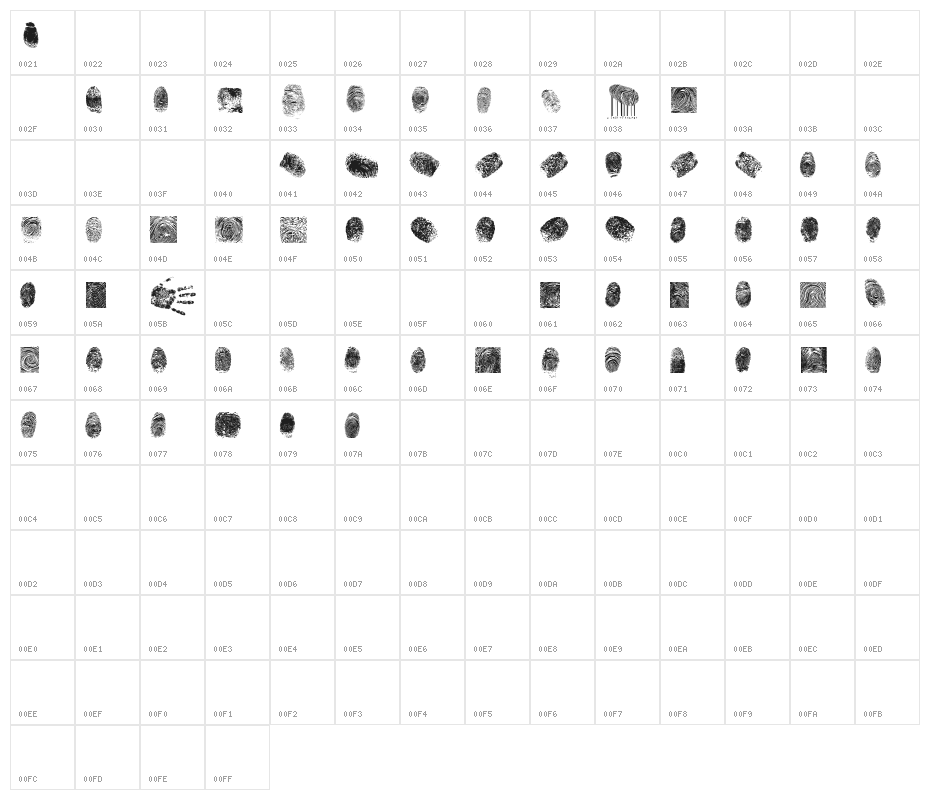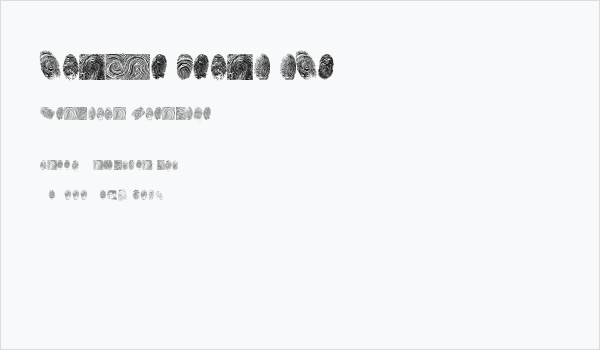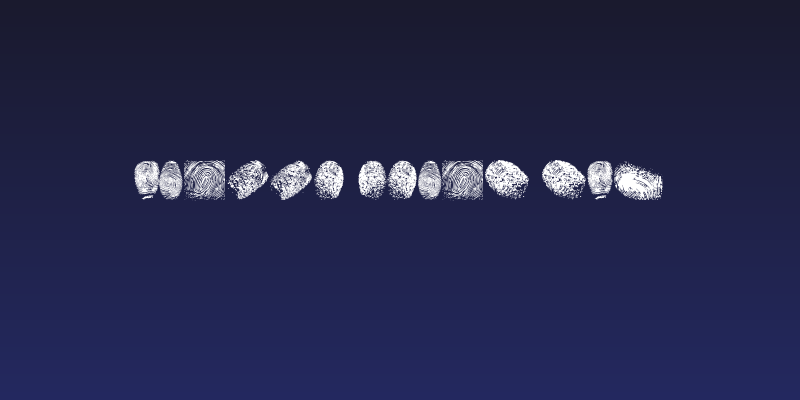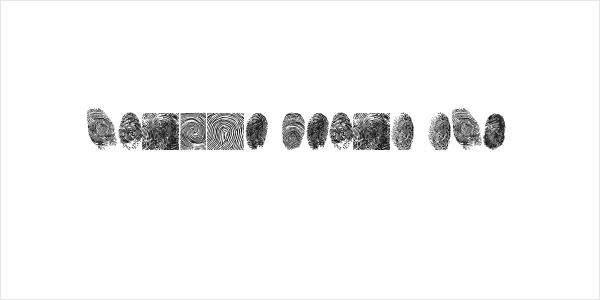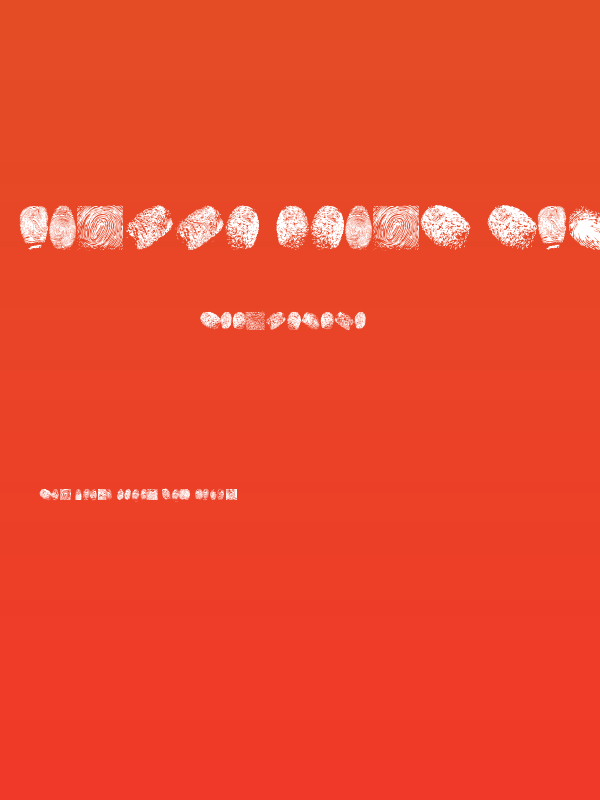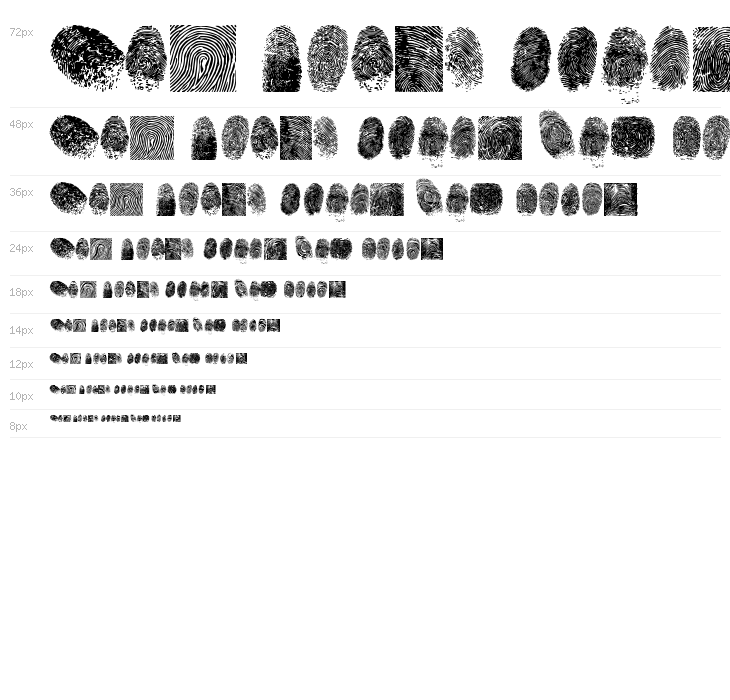
finger print tfb Font
finger print tfb Description
A decorative dingbat font composed entirely of various fingerprint illustrations, including different patterns, densities, and orientations, as well as a barcode and a few square fingerprint motifs.
| Overall Style | Decorative, Thematic |
| Use Case | Icons, Logos, Themed illustrations, Posters |
| Proposed Projects | Crime or detective-themed designs, security-related graphics, educational materials, posters, and creative branding. |